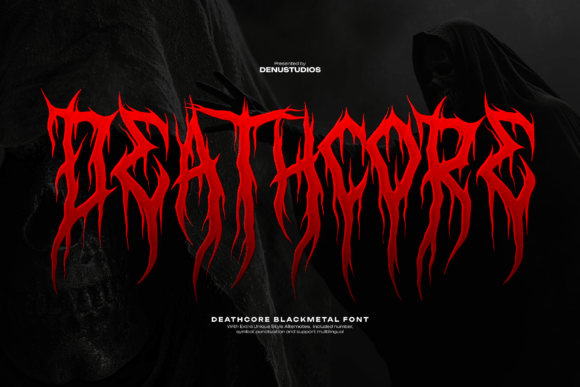
The Perfect Blend of Dark Elegance: Deathcore Font
Have you ever stared at a blank canvas, waiting for the perfect font to bring your design to life? That’s exactly what happened to me last week, and I’m still in awe of the result. It all started when I stumbled upon a mysterious, yet striking font that seemed to embody the essence of black metal music. I knew right then and there that I had found something special – a font that would take my designs to the next level.
Meet the Deathcore Font, a black metal font that’s perfect for any project that requires a touch of darkness and elegance. From logos to branding projects, homeware designs to product packaging, this font is sure to leave a lasting impression. As a designer, I can attest to the value of having a versatile font like Deathcore in your arsenal. It’s a game-changer that will elevate your designs and make them stand out from the crowd.
- Unique Characteristics: Distinctive, aggressive typography with a focus on bold, gothic-inspired letterforms and intricate details.
Deathcore Font Review
When I first laid eyes on the Deathcore Font, I knew I was in for a wild ride. This font screams metal music and extreme sports, with bold lines and aggressive angles that make it perfect for any design that needs a little edge. ✨ I love how the font’s creator has taken inspiration from the harsh, industrial feel of deathcore music and channeled it into a font that’s both intense and stylish.
Here are some of the things that work well with Deathcore Font:
- ✨ Unapologetic attitude: This font doesn’t hold back, and that’s what makes it so great. It’s perfect for designs that need a bold, in-your-face attitude.
- ✨ Customizable: With a range of weights and styles to choose from, you can tailor Deathcore Font to fit your design needs.
- ✨ Unique aesthetic: Deathcore Font’s industrial feel sets it apart from other fonts on the market, making it a great choice for designers who want to stand out.
That being said, there are a few limitations to consider:
- ⚠️ Limited legibility: While Deathcore Font is perfect for bold, eye-catching designs, it may not be the best choice for text-heavy designs where legibility is crucial.
- ⚠️ Limited font sizes: At smaller font sizes, Deathcore Font can become difficult to read, so be sure to use it at larger sizes for optimal results.
Overall, I think Deathcore Font is a great choice for designers who want to add a little edge to their designs. While it may not be perfect for every project, it’s a bold and stylish font that’s sure to make a statement.
For a more aggressive look, try combining the Deathcore font with bold or italic styles.
For a more intense look, try using the Deathcore font in conjunction with bold or italic styles and layer blending modes.
For a more dramatic look, try combining the Deathcore font with bold or italic styles and color changes.
The Deathcore font is ideal for:
- Music and art projects that require a bold, aggressive look.
- Band or artist logos that need a distinctive and edgy feel.
- Graphic design projects that require a high level of intensity and energy.
Remember to experiment with different font sizes, styles, and combinations to achieve the desired effect.